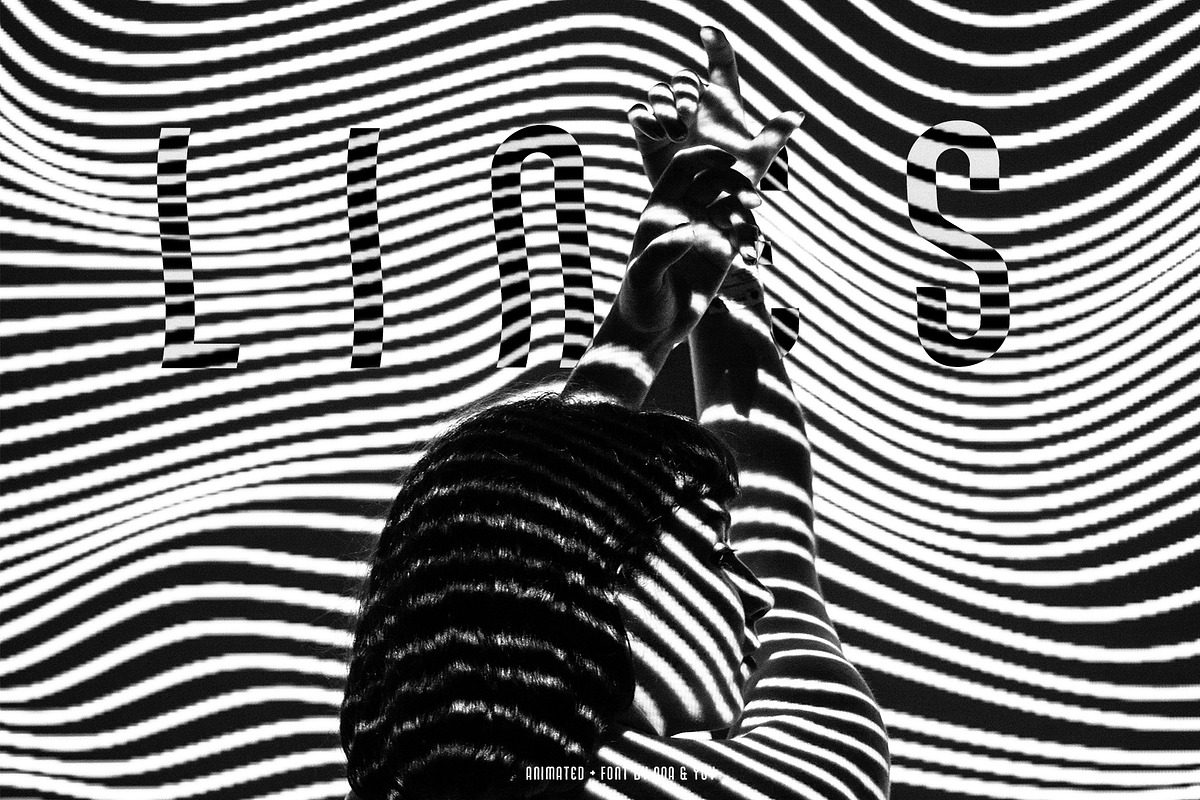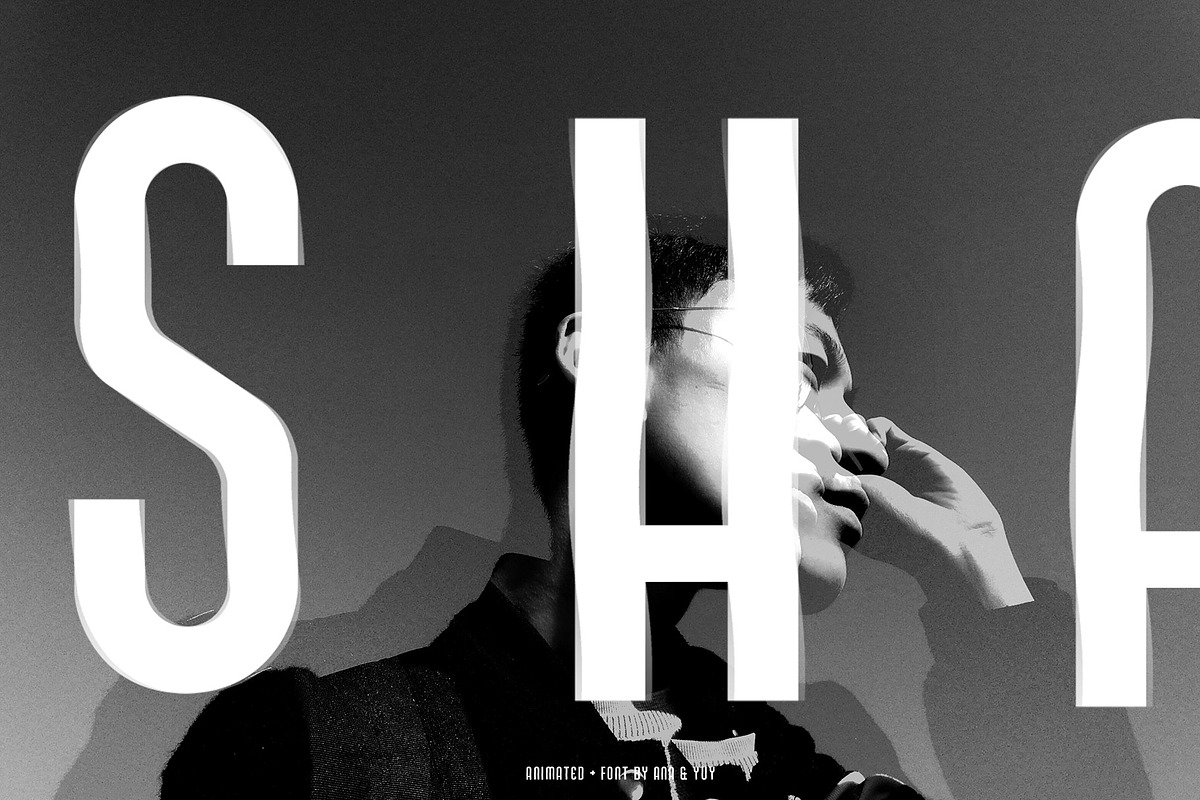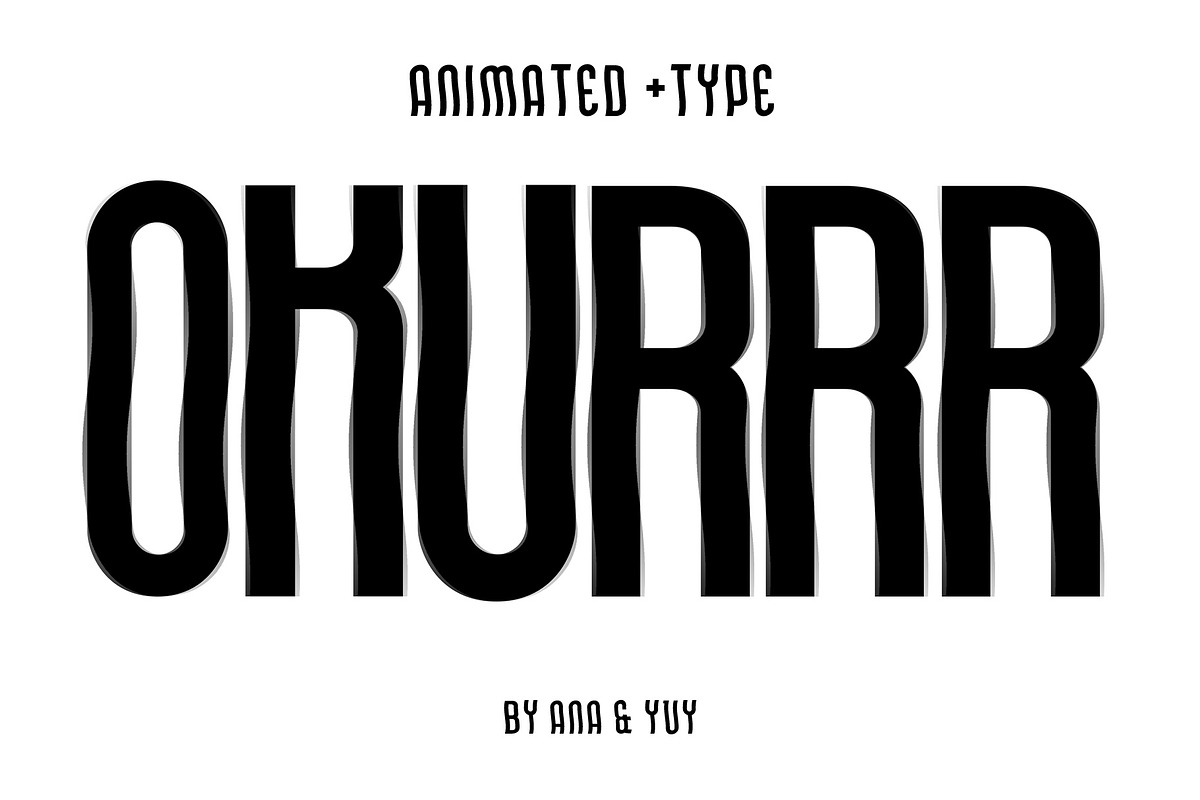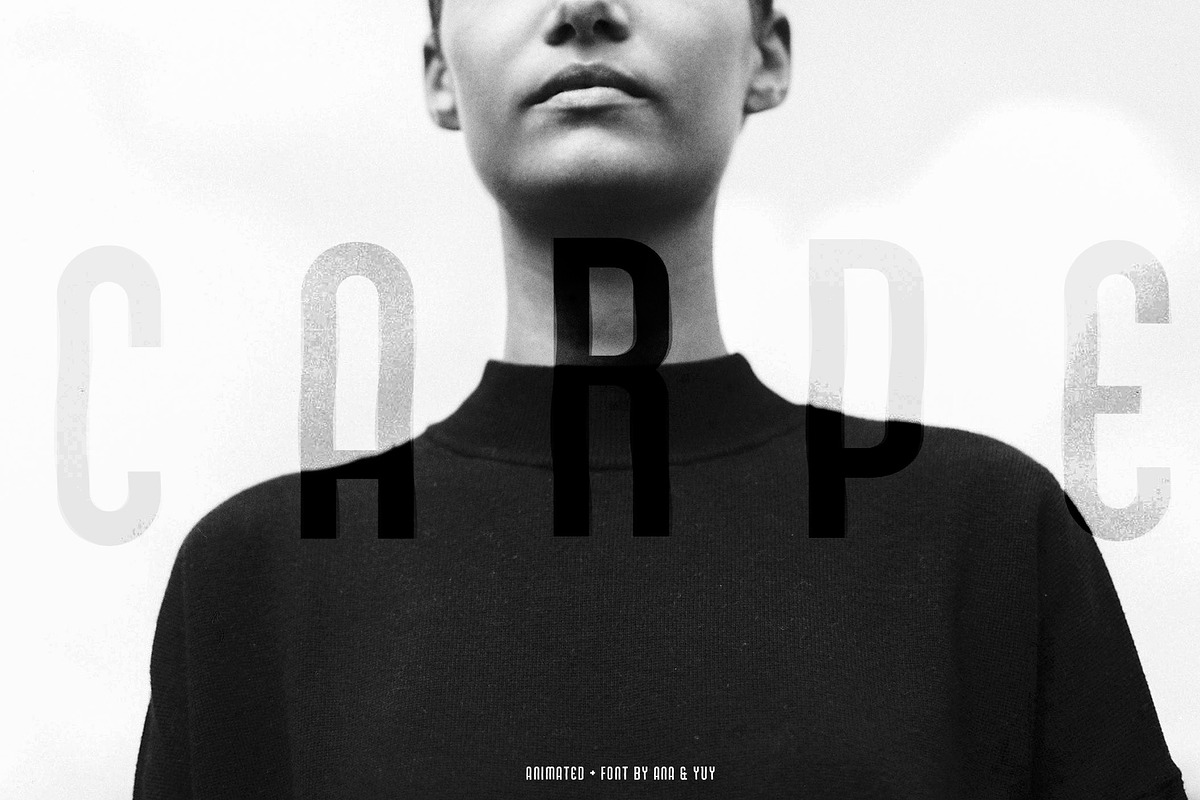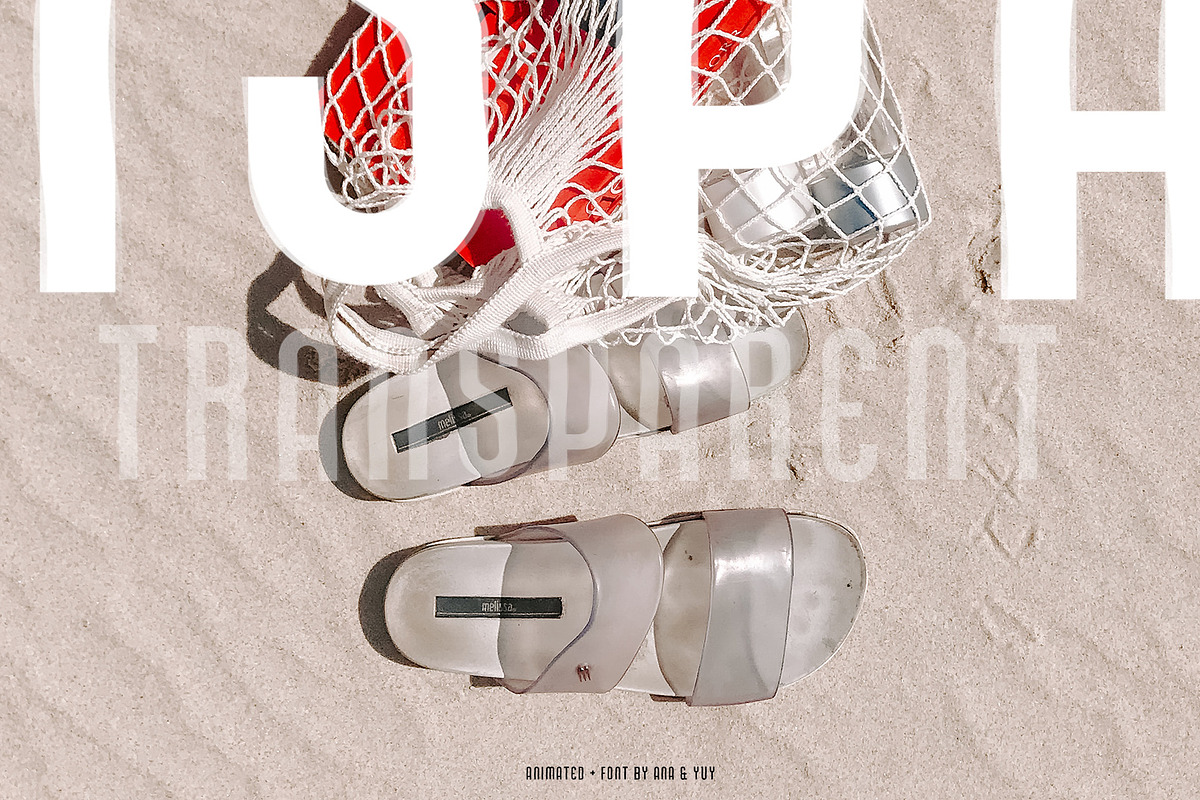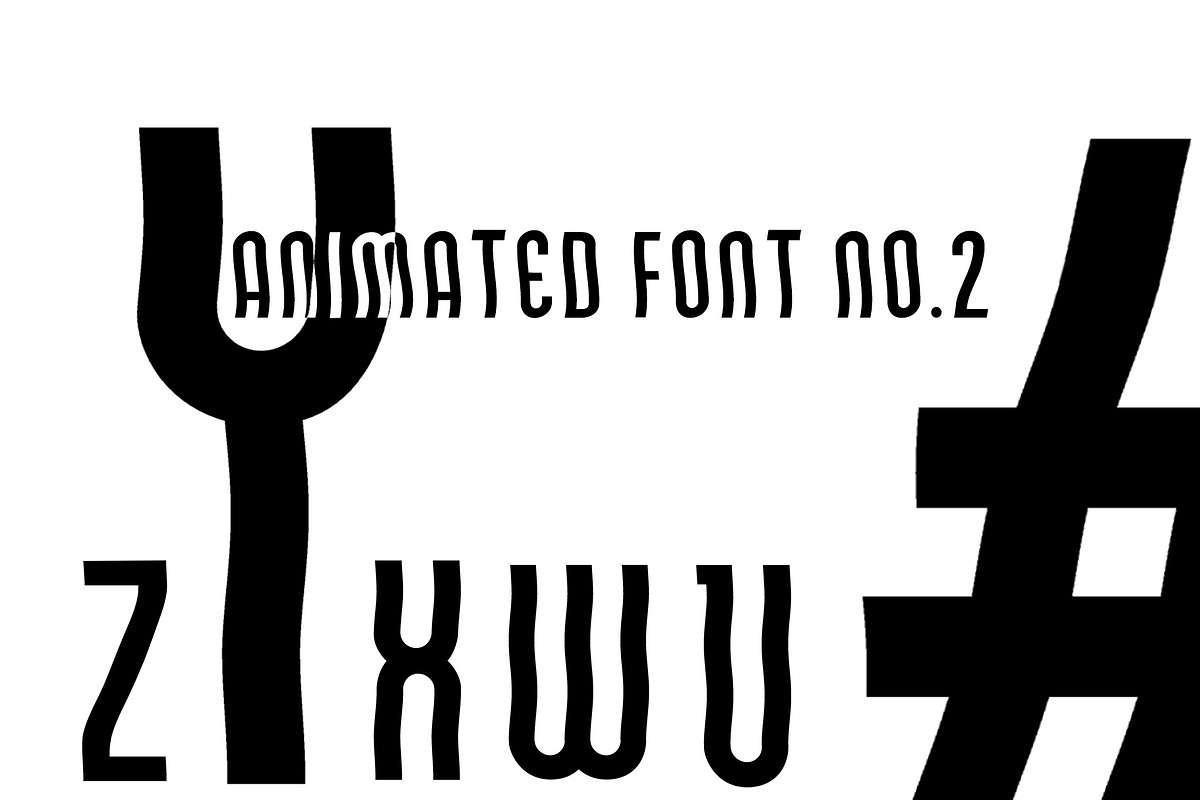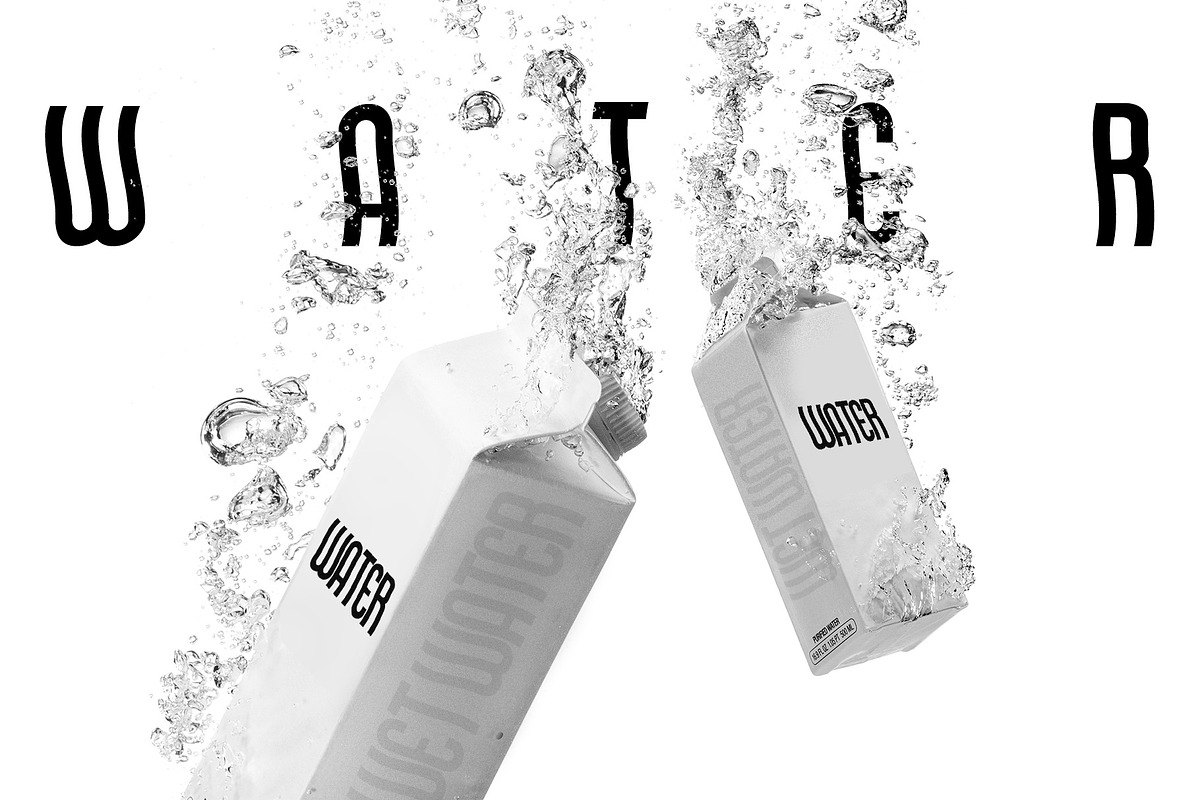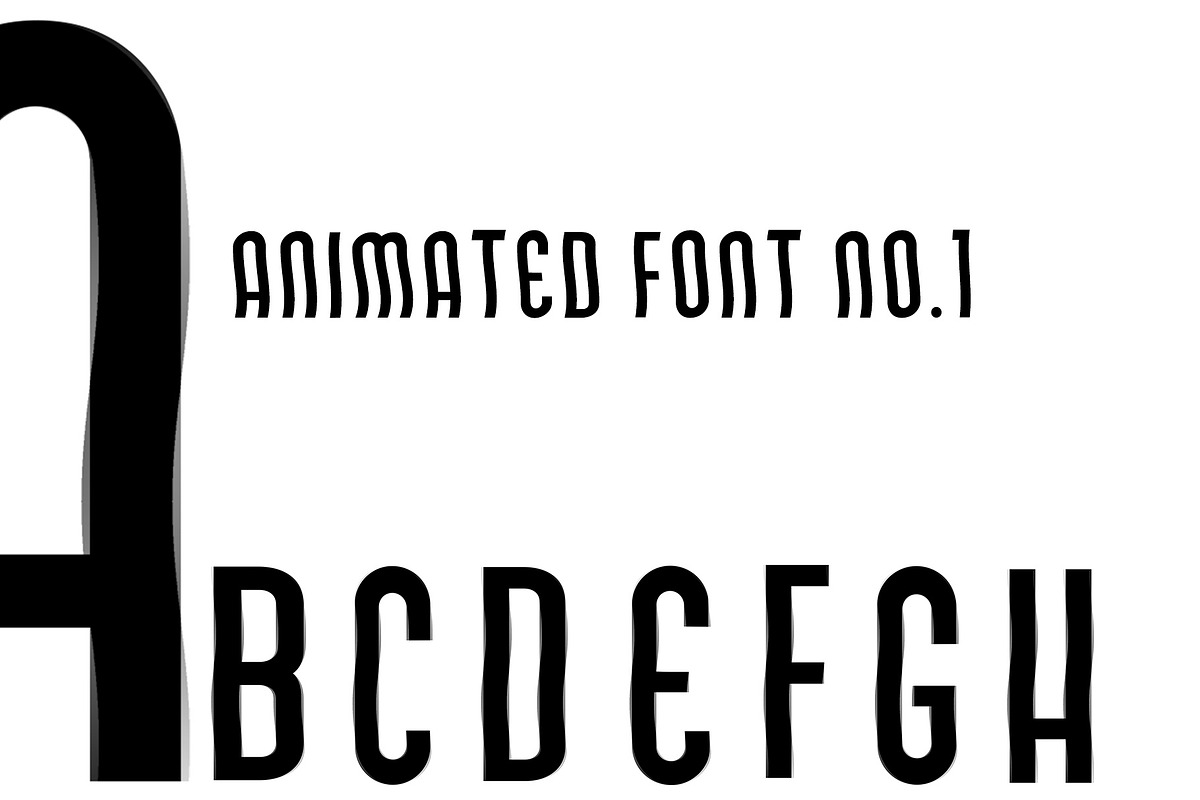
Animated Wavy Strong Sans Serif Font
Our first font - boom. A playful but still strong and bold sans serif collection which catches the starting bold design trend. Okurrr is the perfect font for arty and experimental design projects, motion designs and video editing. Give your still a touch of motion and movement by using the animated version combined with the write on font.
Animated Wavy Strong Sans Serif Font by ana & yvy fits naturally into Branding, posters, packaging, typography.